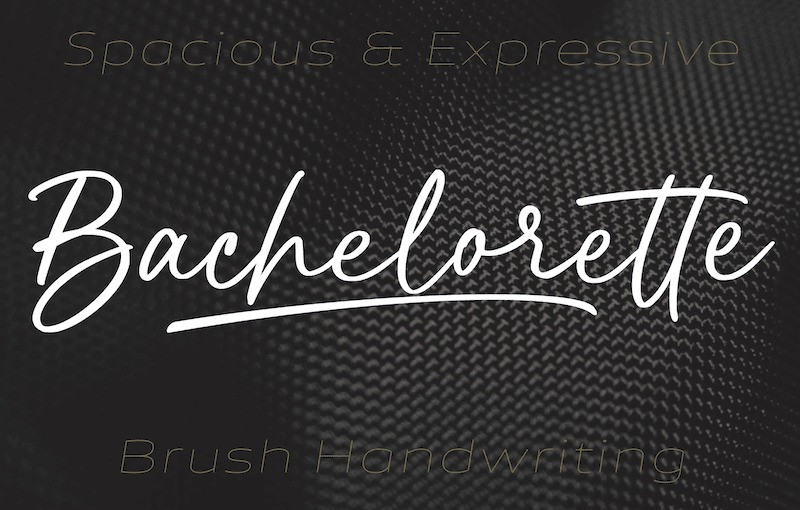
Bachelorette Font
Bachelorette Script Font,  Ideal for logos, handwritten quotes, product packaging, header, poster, merchandise, social media & greeting cards.
Use underscore _ anywhere in a word to make swashes.
Example: Bach_elor
Use multiple underscores to make different swashes.
Example: Love__letter